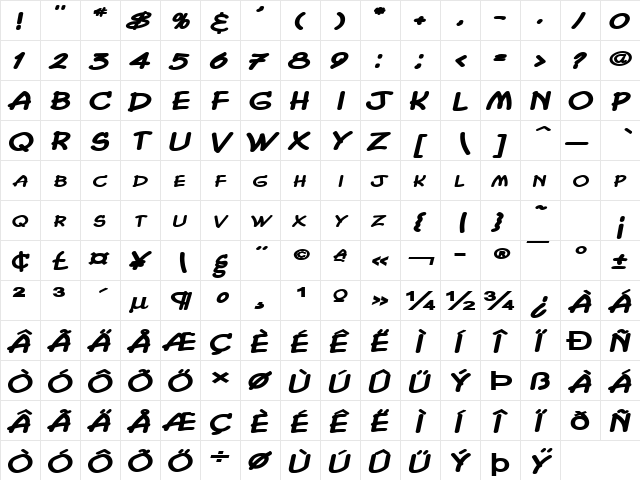
Chasm Extended Heavy Italic
Design Context for Chasm Extended Heavy Typeface
Chasm Extended Heavy is a composed and adaptable typeface that performs quietly and consistently across a wide range of design contexts. Its italic angle brings a sense of urgency and motion to the letterforms.